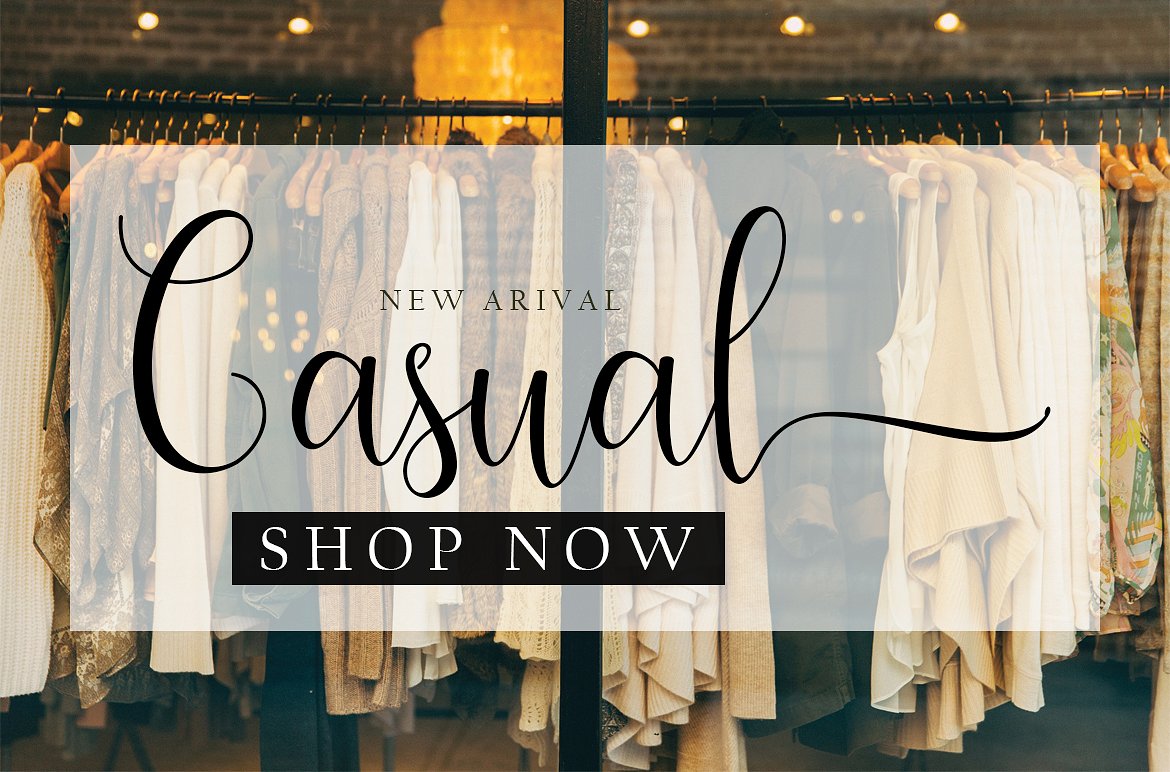
Antartika Font
Antartika font Duo with modern Handwritten style, this font will perfect for many different project ex: quotes, logo, blog header, poster, banding, fashion, apparel, letter, invitation, stationery, etc…